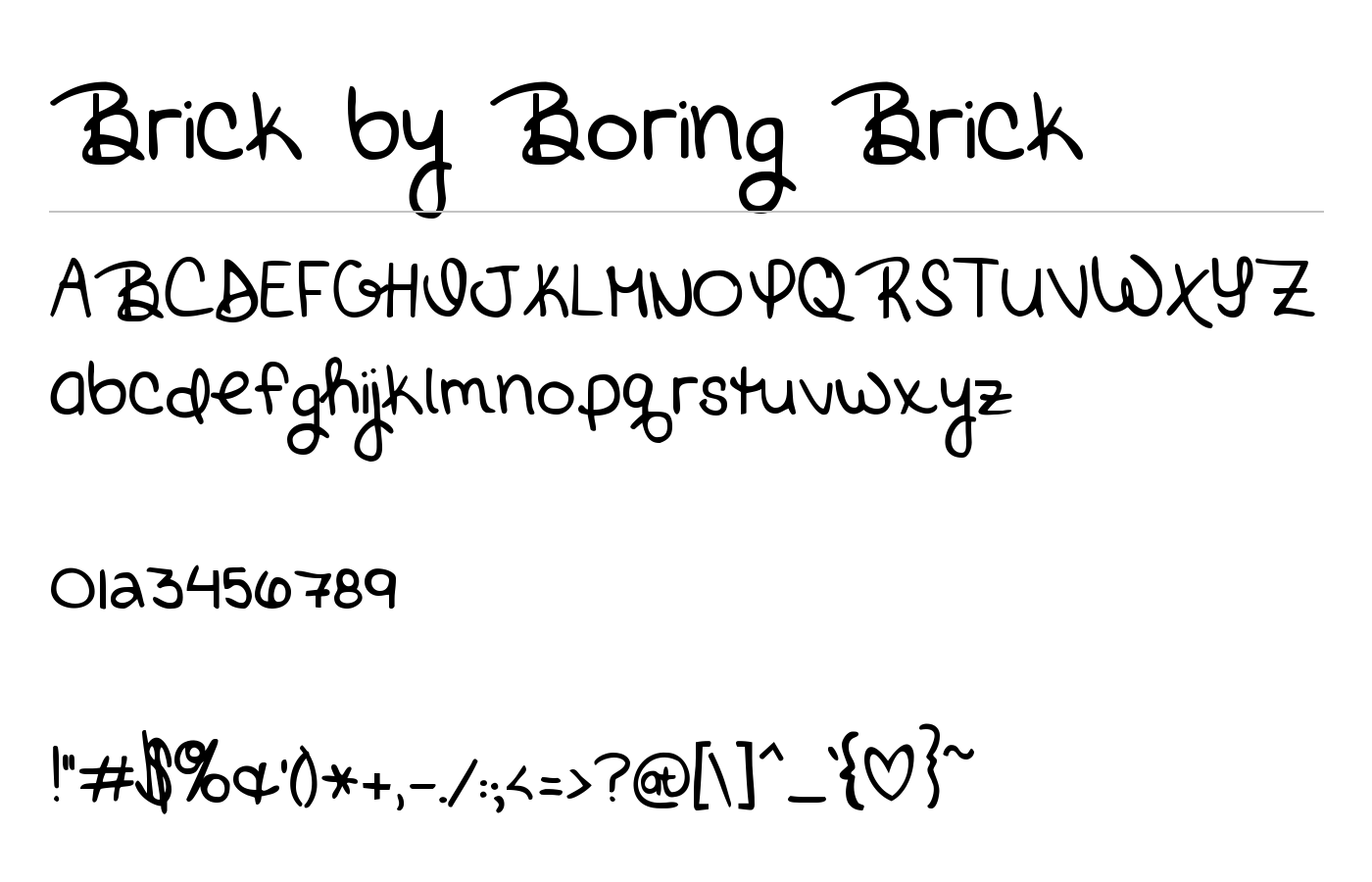
Brick by Boring Brick is a playful, handwritten sans serif font characterized by its casual, quirky letterforms with varied stroke terminals and whimsical loops. Its medium weight and moderately condensed width make it highly legible while maintaining a fun and approachable personality, perfect for projects needing an informal, creative touch. This font works well in children’s books, casual branding, invitations, and social media graphics where a friendly and lively tone is desired.
Brick by Boring Brick Font
About Brick by Boring Brick Font
| Designer | Kimberly Geswein |